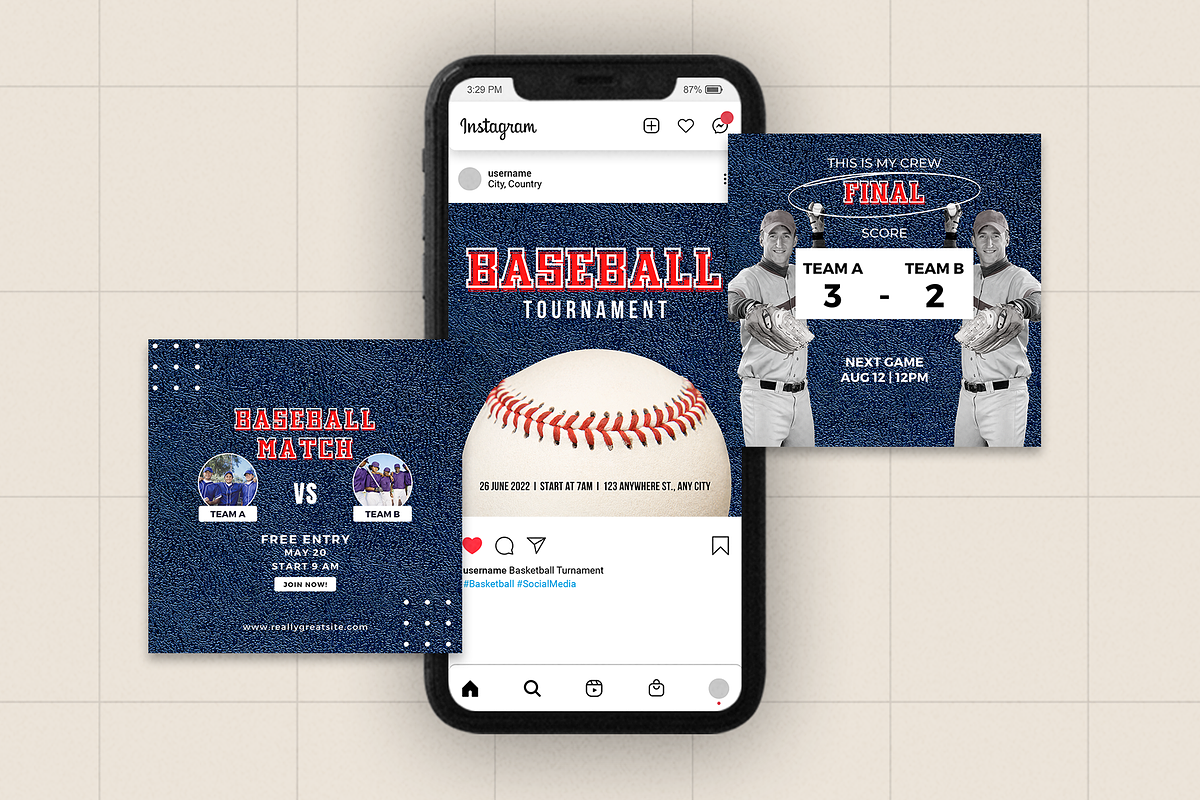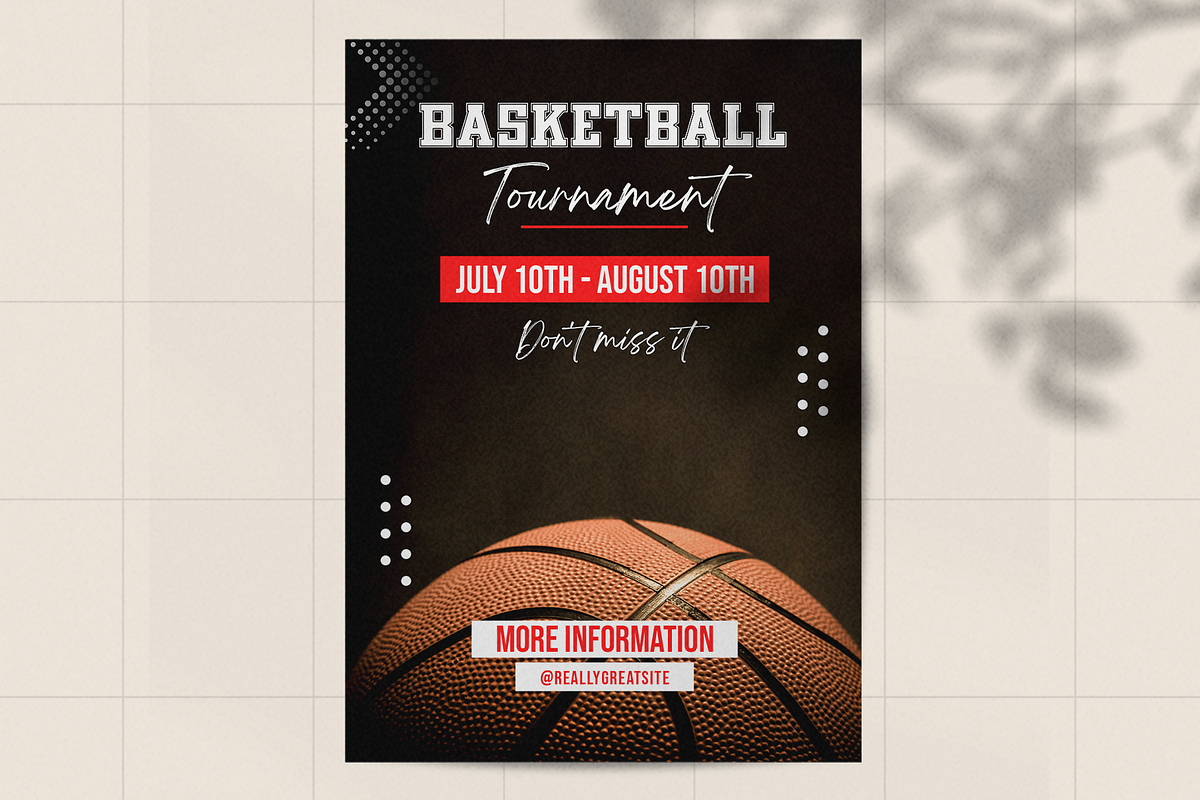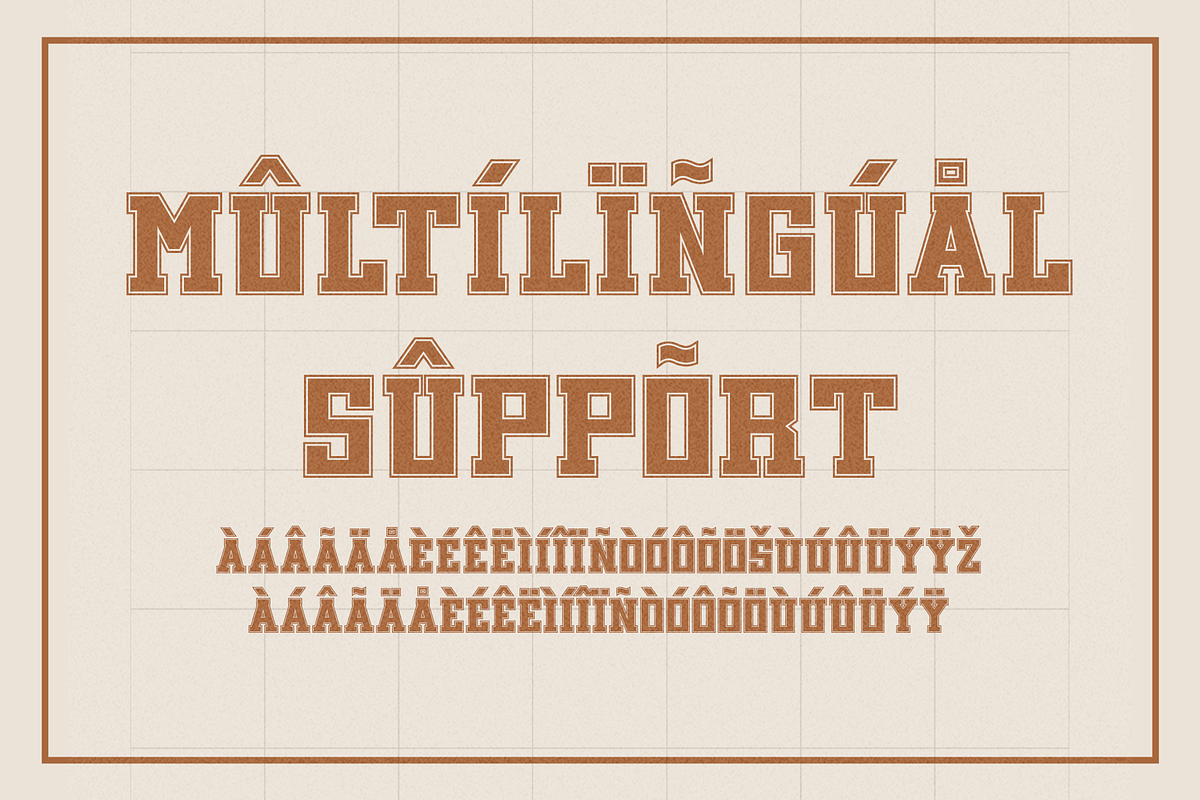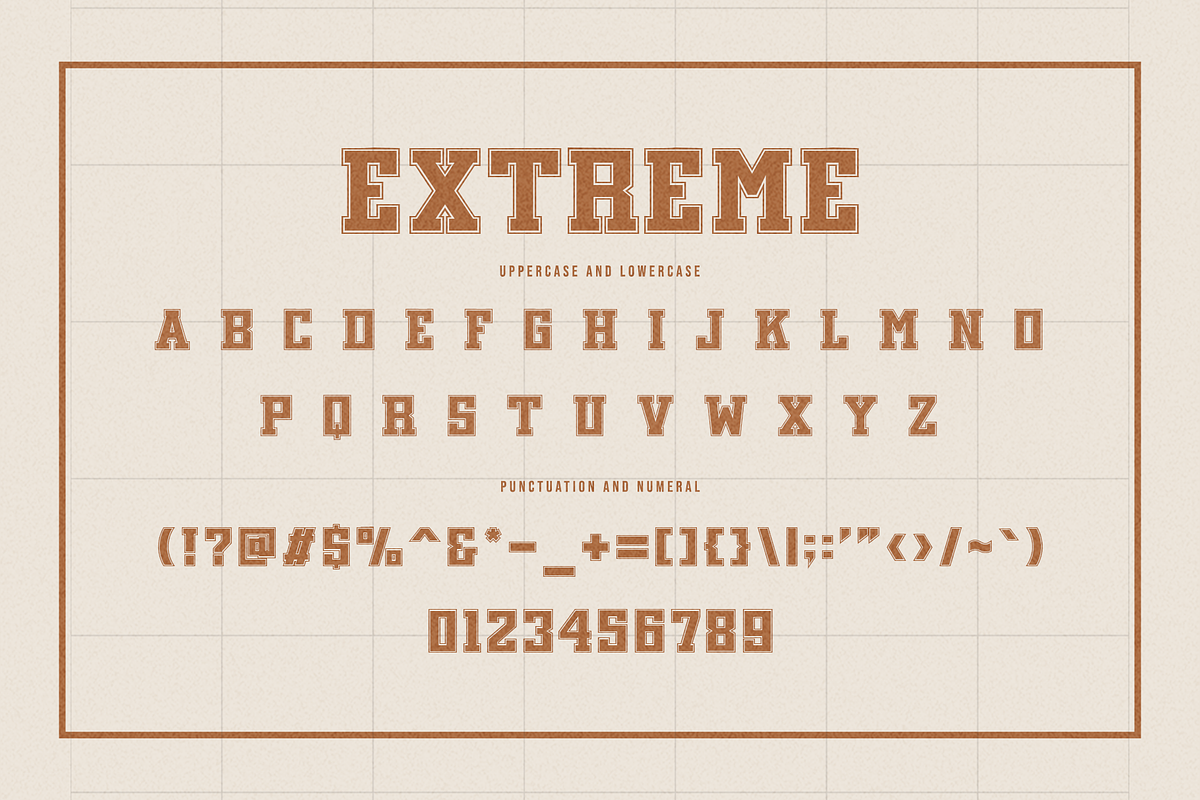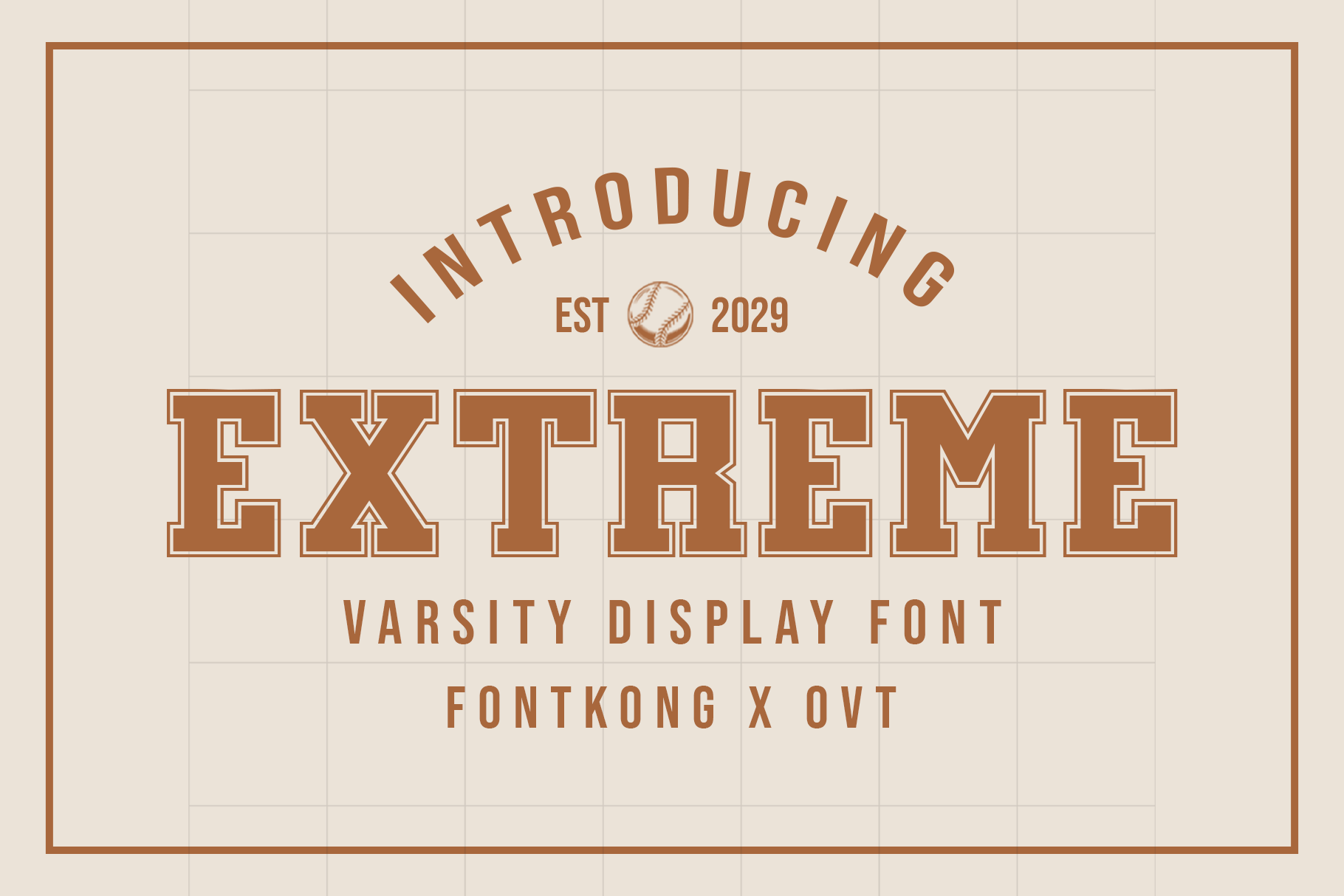
Extreme - Varsity Display Font
Introducing "Extreme," a varsity display font that embodies the energy and spirit of athletic achievement. Perfect for graphic designers, sports teams, and creatives looking to add a dynamic and bold typeface to their projects, Extreme offers a powerful design that stands out with its collegiate-inspired style.
Ideal for team jerseys, sports event posters, logos, banners, and school projects, Extreme’s strong and confident characters provide a commanding visual presence. Each letter is meticulously crafted to reflect the traditional varsity aesthetic, making your designs both spirited and memorable.
The "Extreme" font includes a complete set of uppercase and lowercase letters, numbers, punctuation marks, and special characters. This versatile set ensures seamless integration into various design projects, from dynamic team logos to eye-catching event posters.
Embrace the champion spirit with Extreme, the varsity display font that brings bold athletic energy to every project.